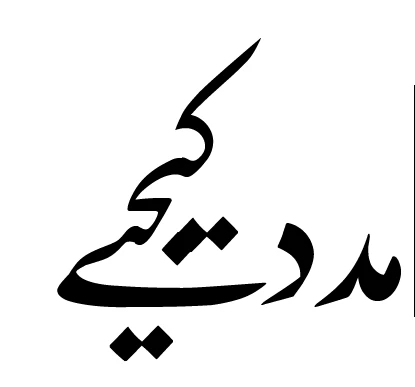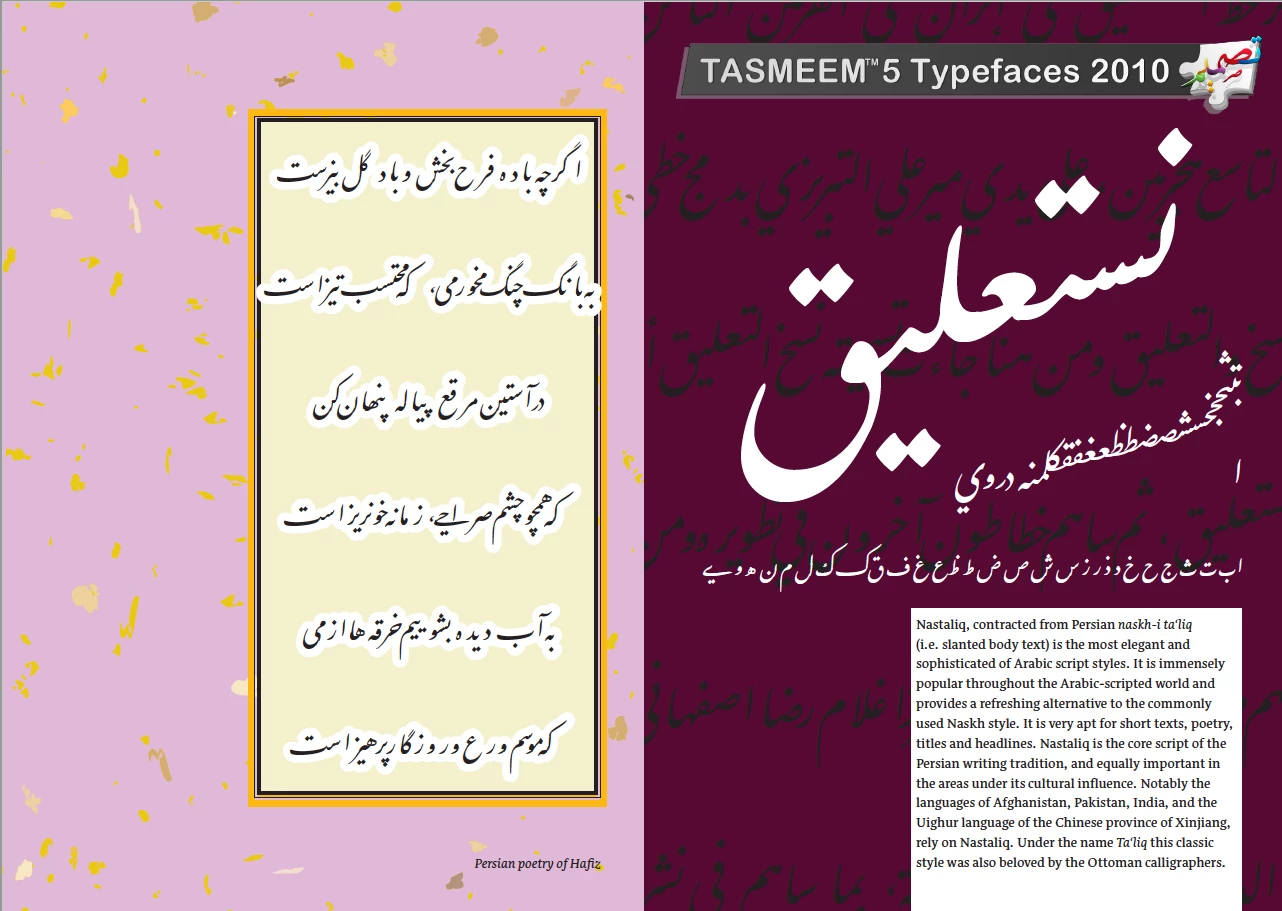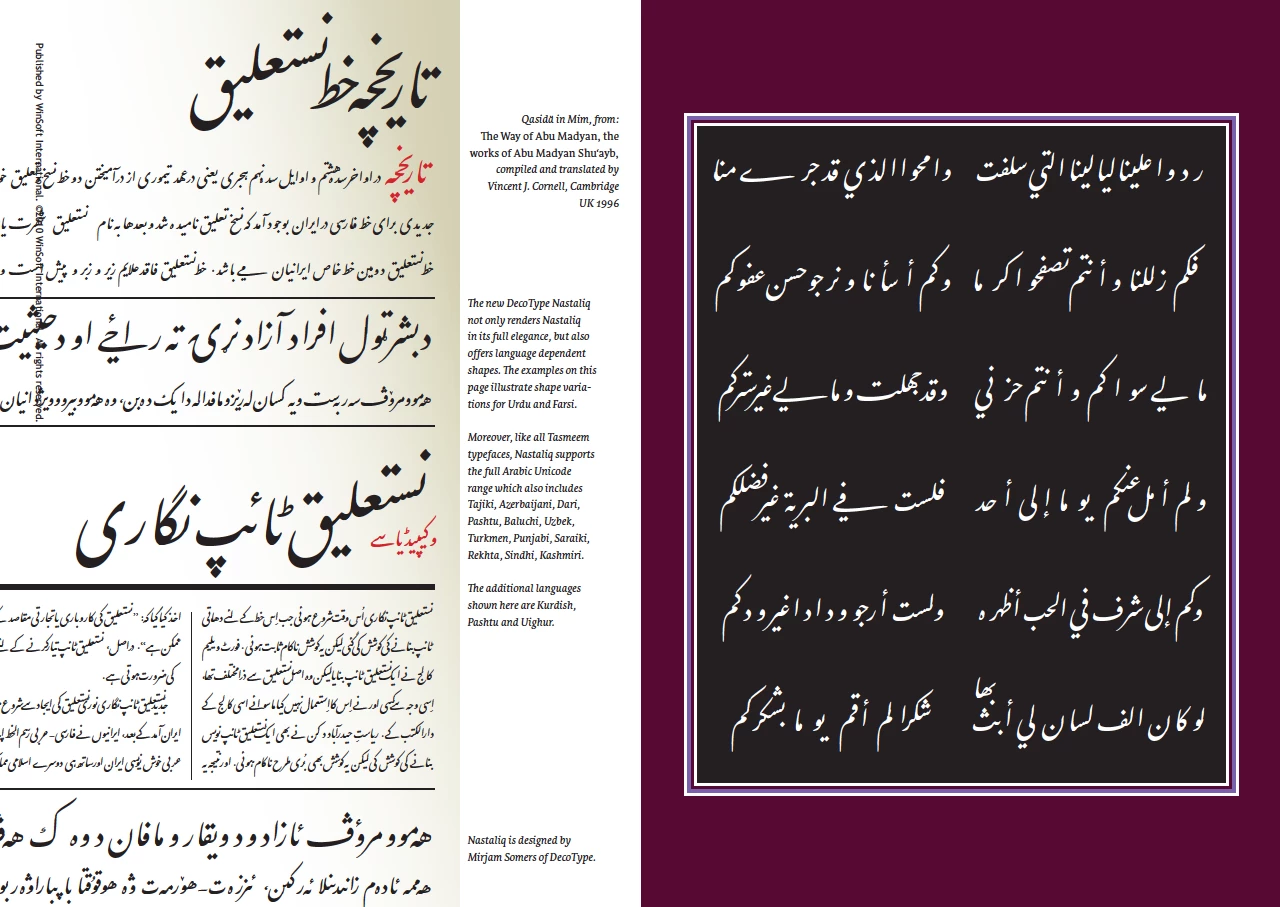
Urdu Nastaleeq Font
I tried lots of available nastaleeq fonts for Urdu in Adobe InDesign, some works well but distort some words, while same font in other apps like Microsoft Word doesn't have such problem, can anyone please help with this.
In Adobe InDesign:
Thank you very much Shibli please also share paragraph, character or language settings if you're using anything​ specific for Urdu.
Please read it carefully. There's nothing in the Paragraph Style and you don't need one, only thing you need is latest Jameel Noori Nastaleeq (v3) font, don't ask for download link but Google it. Thanks
can you send me the Paragraph Style?
I'm on Mac, just downloaded Nafees Nastaleeq font from this research centre in Lahore after reading their license agreement.
I got a better result than yours above but I had a bit of overlapping as you can see. Perhaps you need to give a try.
Thanks Zaid, I tried all available nastaleeq fonts including this one, but its not serving the purpose.
The best Nastaleeq font on InDesign I've ever found was developed by Decotype and had to work through a special InDesign plug-in called Tasmeem. The control was phenomenon but you must invest
Above are samples from Tasmeem catalogue which used to work on my older InDesign CS5
is that really the same font as used with MS Word?
The rendering of at least one glyph looks a bit different…
Same (jameel noori nastaleeq) font, seems like Word handle it well while ID need more sophisticated font or maybe I'm missing something.
There are quite a few possibilities here. What version of ID are you using? Can you share the file, or tell us the name of the font? I don't handle lots of Urdu, but I know that there are lots of nastaliq fonts that require particular installation methods or tricks in typesetting - or plugins, or whole other applications. Speaking of which: I assume you are aware of InPage, right?
It looks like you probably have the World-Ready Composer turned on (do you?), but what language do you have your text marked as in the Character panel? I know that Urdu is not in the dropdown, so you might need to add it yourself - here are instructions from Adobe (assuming you are using InDesign CS6 or CC).
Lastly, I had never read about it until you asked your question, but Mubeen looks awfully promising.
I tired it on Adobe InDesign CC 2015 and 2017 on Windows 10 and MacOS Seirra with same result. Yeah I use InPage but it has very limited set of tools and options.
Mubeen is not that good in real use, even in their sample PDF there are lots of kerning tracking issues. For now I'm using GREP + Character Style to control kerning and it work well. There are only few problematic words, found a workaround (InPage to Illustratorfor to InDesign and snippet for repeated words), but it take little bit extra time as compare to simple text base workflow.
@Prince Oceans, I am new to InDesign and I don't want to work with In page for obvious reasons, I also thought about trying mubeen but GREP+CharacterStyle seems to be better option but its complicated. Can you share/recommend your character styles etc.